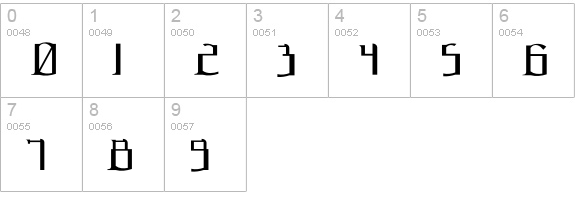
Reverse Font Details
Introducing Reverse font, a captivating typeface that offers a unique twist to your design projects. With its stylish and intriguing design, Reverse font is sure to make a bold statement and grab attention. Featuring a distinctive reverse effect, this font adds a touch of elegance and creativity to any text. Whether you're designing a logo, poster, or website, Reverse font will effortlessly elevate your design and leave a lasting impression on your audience. What sets Reverse font apart is not just its stunning aesthetics, but also its versatility. It can be used for both headline and body text, making it a valuable asset for designers looking to create cohesive and visually appealing layouts. And the best part? Reverse font is absolutely free! Yes, you read that right. This extraordinary font is freely available to download at FontsMarket.com. Now you can enhance your designs without breaking the bank. Don't miss out on this incredible opportunity to add Reverse font to your font collection. Download it today and let your creativity run wild. With Reverse font, your designs will never be the same again.